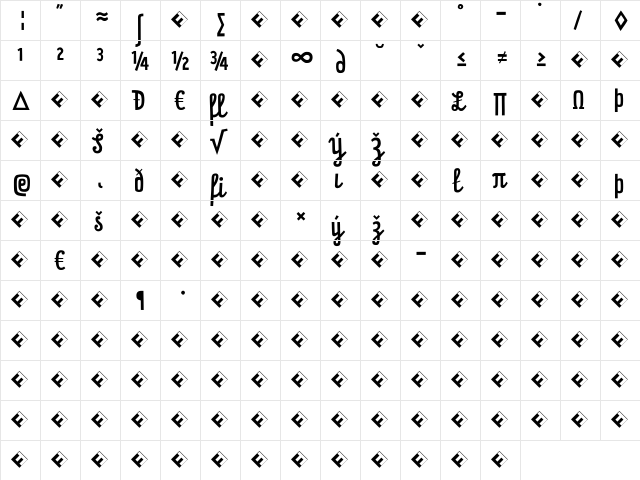
PraterScriptTwo-RegularExp Regular
Design Context for PraterScriptTwo-RegularExp Typeface
PraterScriptTwo-RegularExp flows with the natural rhythm of handwritten lettering, making it ideal for designs that call for warmth and personal expression.
Font Pairing: Combine PraterScriptTwo-RegularExp with a simple geometric sans for maximum contrast — the tension between flowing curves and clean structure is a classic typographic pairing.
Pro Tip: Pair PraterScriptTwo-RegularExp with a clean sans-serif for supporting text. The contrast between fluid script and geometric structure creates an elegant typographic hierarchy.